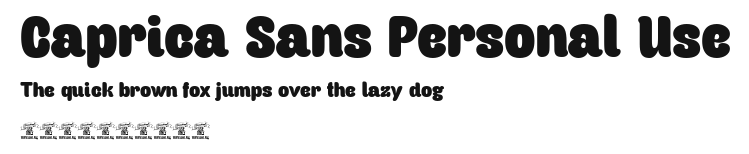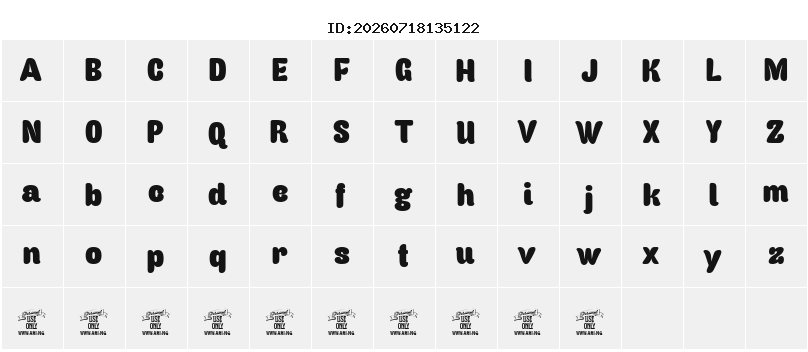
• Font Name: Caprica Sans Personal Use
• Designer: MÂns Greb‰ck
Caprica Sans Personal Use.ttf is a modern, elegant sans-serif font designed for ultimate readability and visual harmony. Perfect for branding, headlines, web design, and print materials.